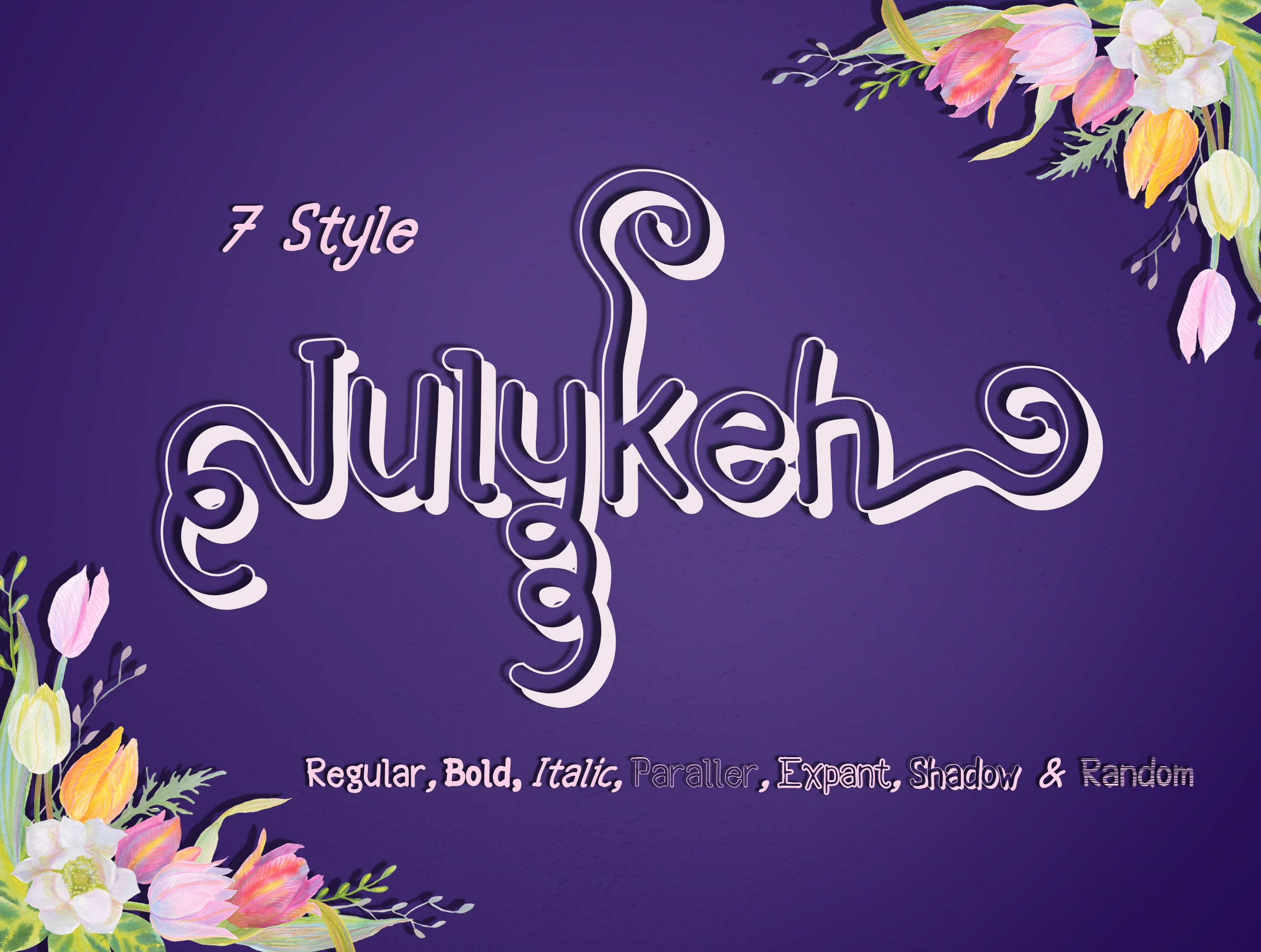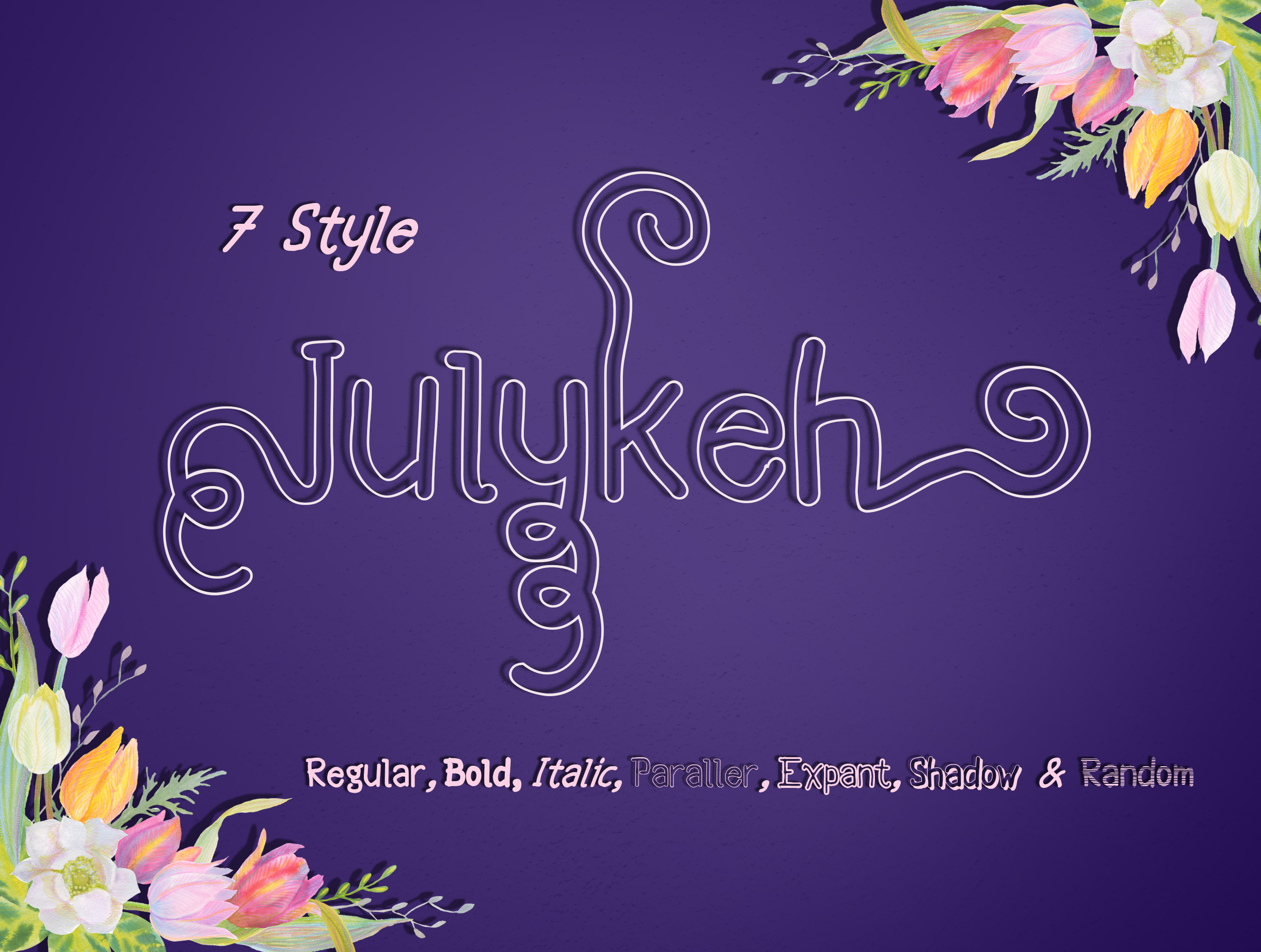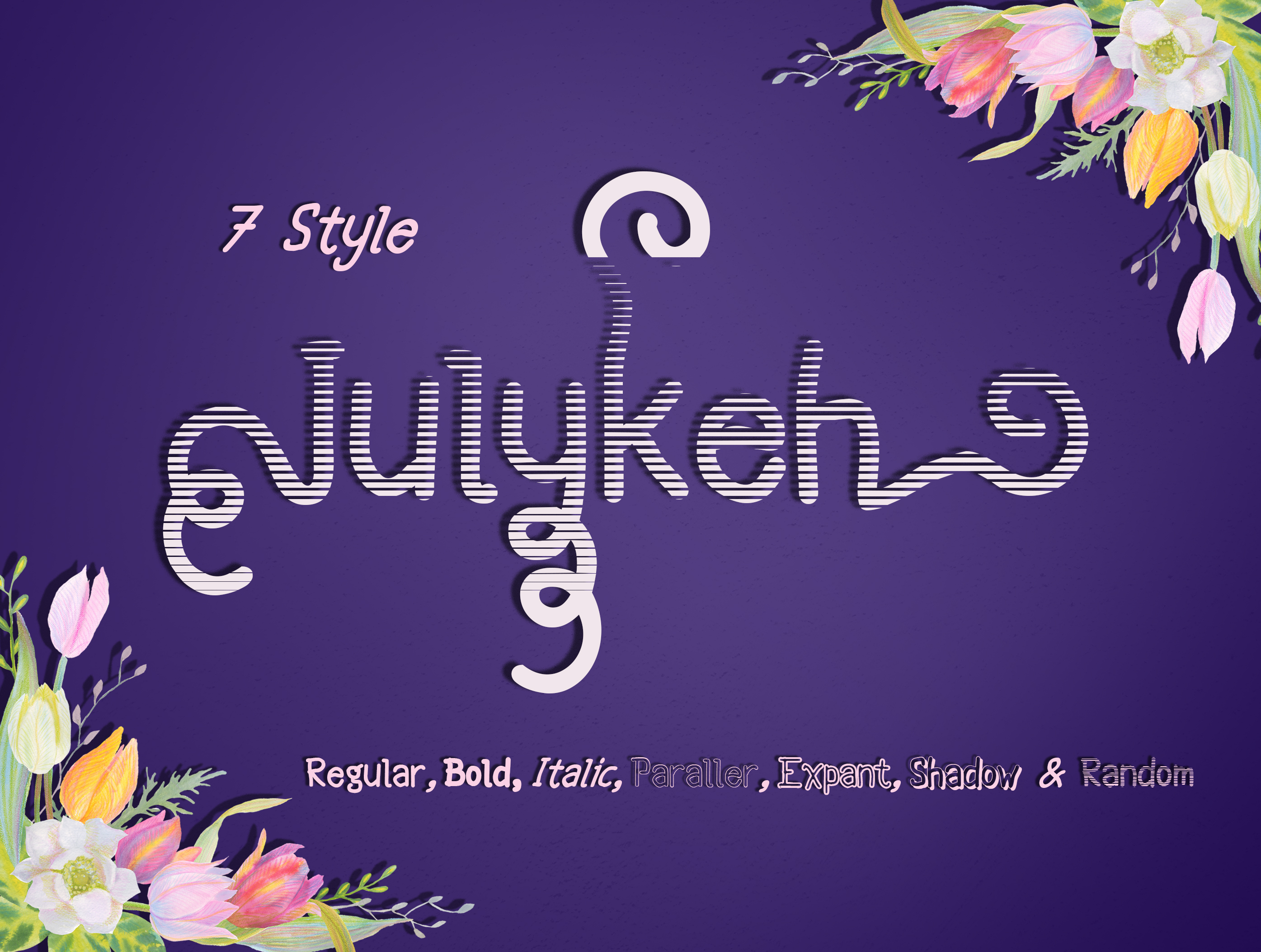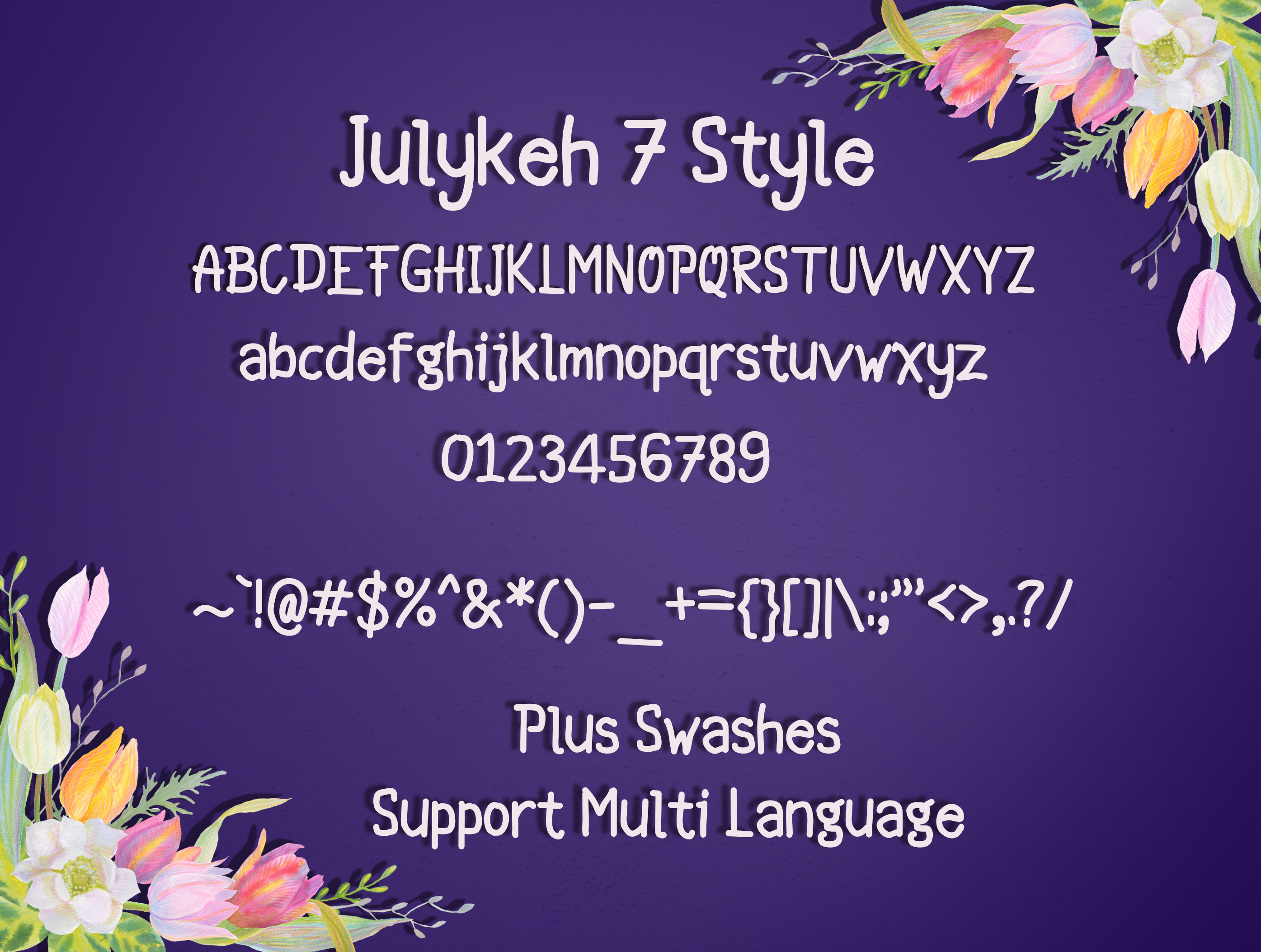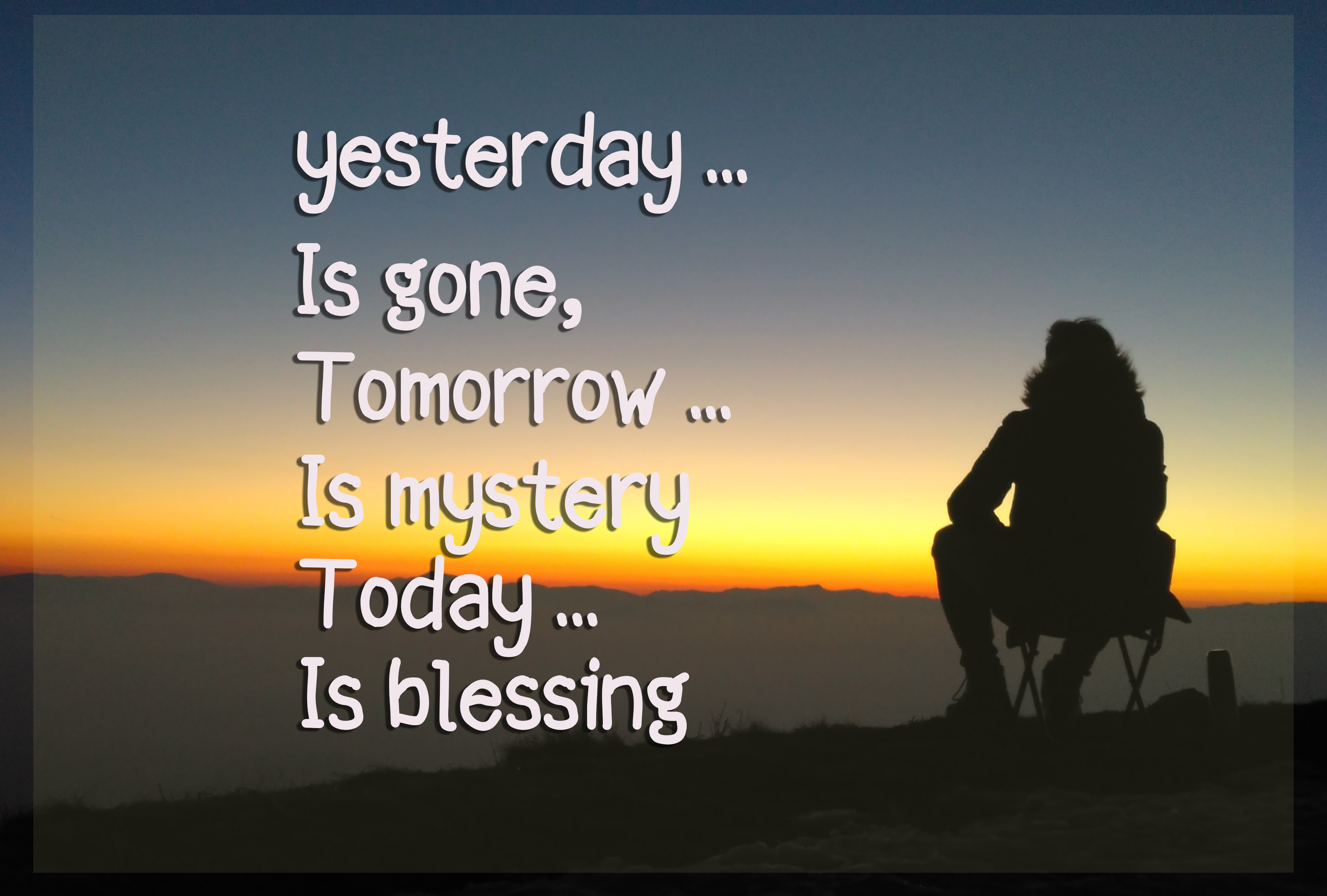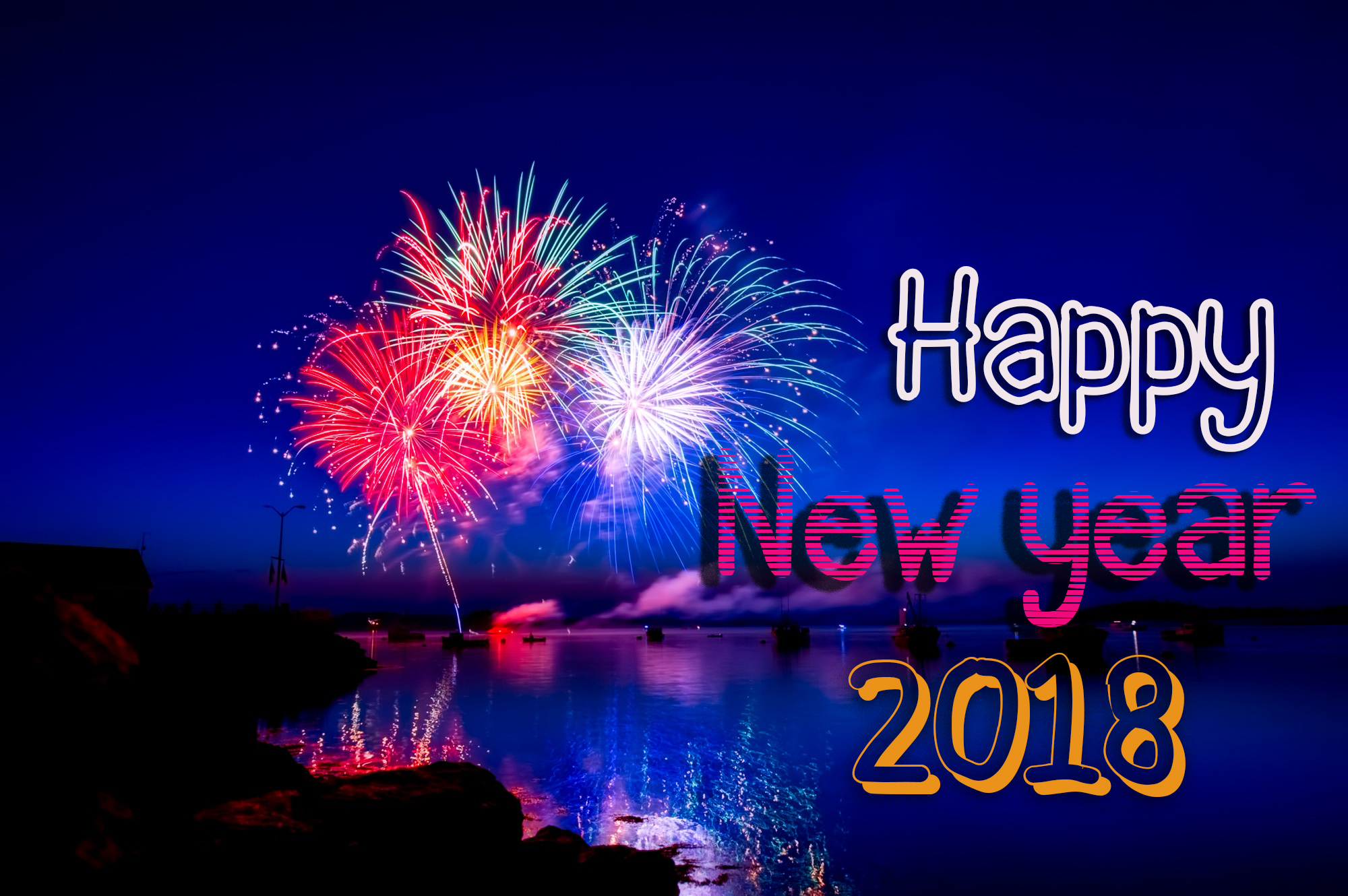
Introduction to Julykeh Font
As designers, we’ve all been there – staring at a blank canvas, trying to find the perfect font to bring our creative project to life. The struggle is real, but what if you had a treasure trove of unique, handmade fonts at your fingertips? Enter the Julykeh Font, a game-changing design resource that’s about to revolutionize your workflow.
With 7 distinct styles to choose from, the Julykeh Font offers unparalleled versatility for your next high-quality design. Whether you’re working on a logo, brochure, or social media graphics, this font family has got you covered. And the best part? It’s available for a free download, complete with a transparent background, making it easy to customize and integrate into your design.
So, what makes the Julykeh Font so valuable for designers? Its unique, handcrafted aesthetic sets it apart from generic fonts, allowing you to add a personal touch to your work. With the Julykeh Font, you can elevate your designs and stand out from the crowd.
Key Features of Julykeh Font
- High-quality design resource ideal for creative projects requiring unique typography.
- Features a unique and modern design aesthetic, making it perfect for contemporary creative projects.
- Supports a wide range of languages, including Latin and Cyrillic scripts.
- Perfect for use in logos, branding materials, and other design elements where a distinctive font is required.
Honest Review: Julykeh Font
As a designer, I’m always on the lookout for high-quality design resources to enhance my creative projects. The Julykeh Font caught my attention with its unique and stylish design.
- Unique and stylish design that adds a touch of elegance to any project ✨
- Works well for both digital and print projects
- Limited font sizes and styles available ⚠️
Overall, the Julykeh Font is a great addition to any designer’s toolkit. While it may have some limitations, its unique design and free download make it a valuable resource for creative projects. With a little creativity, it can be a game-changer for designers looking to add some flair to their work.
The Julykeh Font is a high-quality design resource perfect for creative projects. With a transparent background, it can be easily integrated into various design platforms.
Tips for Getting the Most Out of Julykeh Font
Experiment with different font sizes, colors, and styles to achieve the desired look for your project.
Common Use Cases for Julykeh Font
The Julykeh Font is ideal for various design projects, including logos, business cards, brochures, and social media graphics.